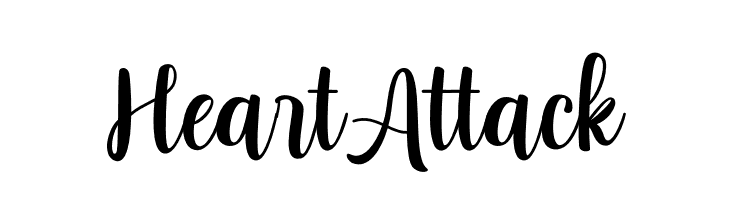
A bold, modern font with geometric shapes and clean lines, perfect for impactful headlines and branding.
A casual, handwritten font with a flowing and dynamic style.
A bold, geometric font with strong, modern letterforms.
A playful, handwritten font with smooth, rounded edges and a modern, casual style.
A bold, textured font with a rugged, vintage appearance.
A bold, textured font with a vintage, distressed style.
An elegant and flowing script font with decorative loops and swirls.
A graceful script font with flowing, elongated strokes and elegant curves.
A decorative font with uppercase letters in heart shapes and classic serif numbers.